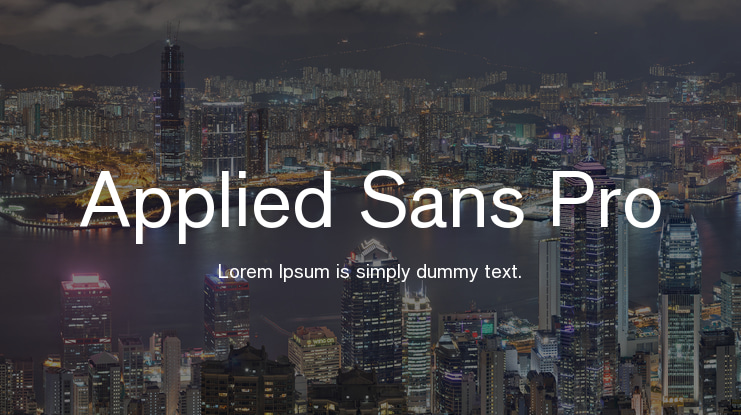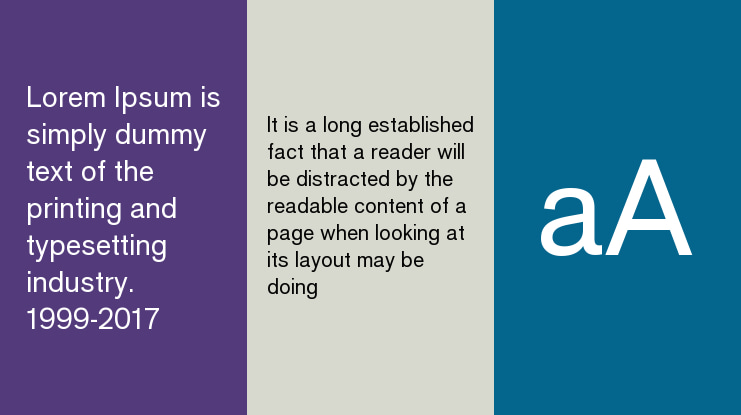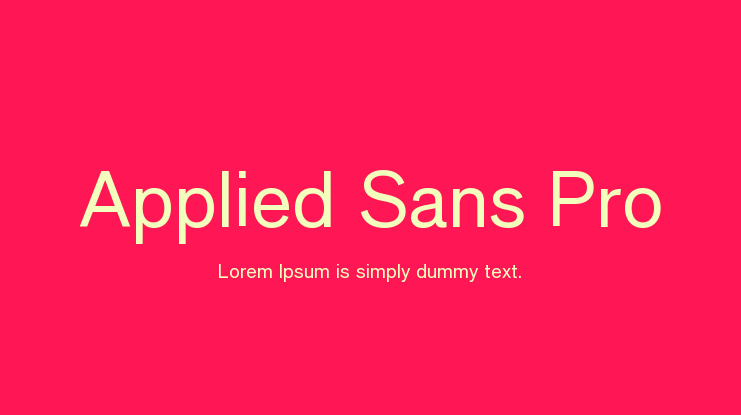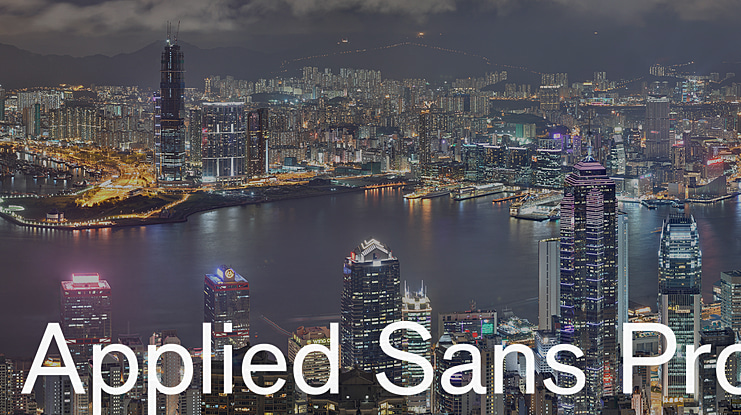
Applied Sans Pro Font Family
Akira Kobayashi; Sandra Winter
The Applied Sans™ typeface family is reimaging of late 19th and early 20th century sans serif typefaces used in what was then called, “jobbing or trade” work. While built on the foundation of these early designs, the Applied Sans design adds to it this all the prerequisite attributes for modern typographic communication.
The Applied Sans design captures the spirit of these early sans serif typefaces, and tempers it with aspects of later creations like the Standard and Monotype Grotesque® typefaces. The result is forms that exhibit nothing unusual and meld a lively demeanor with proven legibility traits. The design is a contemporary suite of systematic weights and proportions. Graphic communicators can now take advantage of a robust typeface family that embraces the distinctive look of the early sans serifs while meeting the needs of today’s global design requirements.
The Applied Sans design benefits from a generous x-height, open counters, large apertures and a slight modulation in stroke weights. The first three establish character legibility in a variety of imaging environments while the latter makes for a design that is inviting and easy to read. Terminals are also cut at right angles to character strokes, softening and humanizing the design.
The Applied Sans family’s range of seven weights, from a delicate thin to commanding ultra black (each with an italic counterpart) and a complementary suite of condensed roman designs provide for exceptional depth and flexibility. Unlike earlier sans serif typefaces, the weight range of the Applied Sans typeface family was developed consistently and purposefully from the beginning. The combination of multiple weights and a wide variety of widths allow for an extensive range of applications and ensure typographic consistency. The family is available as 24 OpenType® Pro fonts, providing for the automatic insertion of ligatures, fractions and alternative characters. The family’s wide range and sensitive gradation of weights, extensive language support and exceptionally high level of character legibility guarantees Applied Sans’ prowess in a wide and diverse range of applications. The light weights are perfect for headlines and other large settings, as well as small blocks of copy at typical text sizes. The regular, medium and bold weights know no boundaries, and the black and ultra black designs are ideal for when typography needs to be powerful and commanding. The design has proven itself in both print and on screen environments – and performs with grace in both. While the Applied Sans design foundation is in typefaces primarily intended for display copy, it is an excellent communicator at small sizes and in lengthy blocks of text copy.